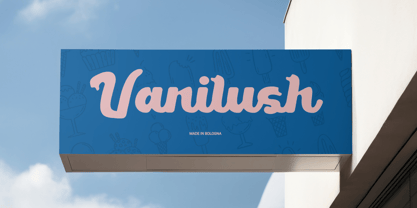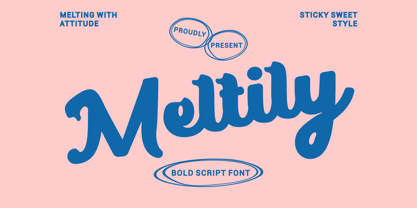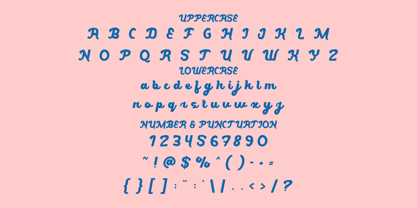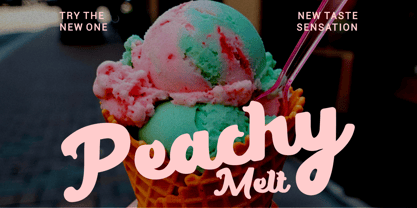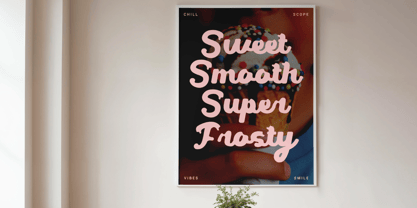
Meltily
by Putracetol
The Meltily Font Family was designed by Putra Novembria Candra Kusuma and published by Putracetol. Meltily contains 1 styles. More about this family
Meltily Bold Script Font is a confident script typeface built with thick, rounded strokes and soft curves. Each letter shows a strong weight with consistent thickness, creating a bold presence without feeling heavy. The letterforms feel slightly inflated, giving the font a smooth, soft, and friendly silhouette. Terminals are rounded and flowing, while connections between characters feel natural and continuous. The height proportions are balanced, with generous x-height that improves clarity at both large and medium sizes. Subtle irregularities in stroke flow add an organic touch, keeping the font expressive while remaining clean and controlled. The script structure feels hand-drawn but refined, making it easy to read even in short headlines. Meltily Bold Script Font carries a warm rhythm that feels lively, approachable, and visually engaging. This balance makes the font suitable for designs that need personality without sacrificing legibility or structure. Meltily Bold Script Font fits projects that require a cheerful yet confident tone. The style blends vintage script character with a modern bold finish, creating flexibility across many creative fields. It works especially well for logos that need a friendly identity, branding systems with strong visual voice, and headlines that must catch attention instantly. The font performs well in packaging, posters, stickers, and product labels where clarity and charm matter equally. It also suits invitations, greeting cards, book covers, magazine titles, and film titles that aim to feel warm and inviting. Advertising designs benefit from its bold flow, helping messages feel engaging and memorable. Meltily Bold Script Font also supports crafting projects and small business visuals that need a handcrafted but professional look. With its smooth curves and bold weight, this font helps designs feel expressive, confident, and visually appealing across print and digital media.
Meltily